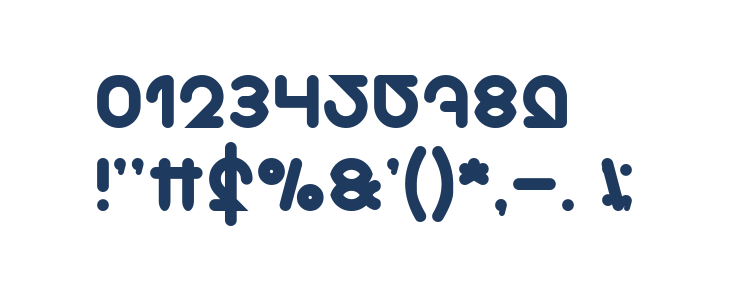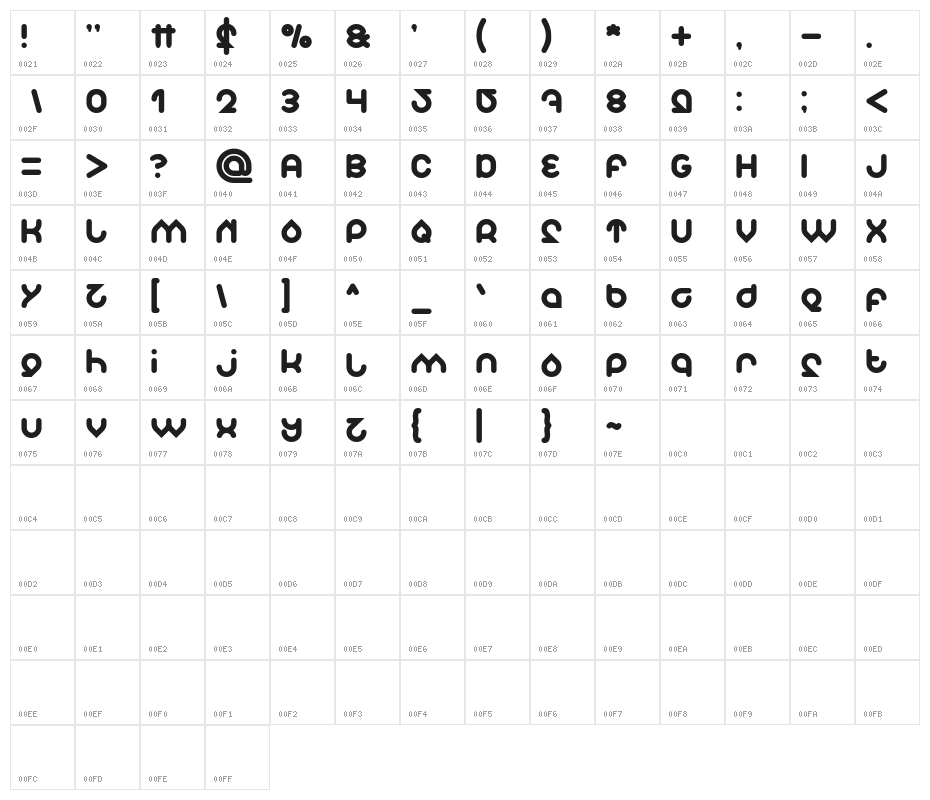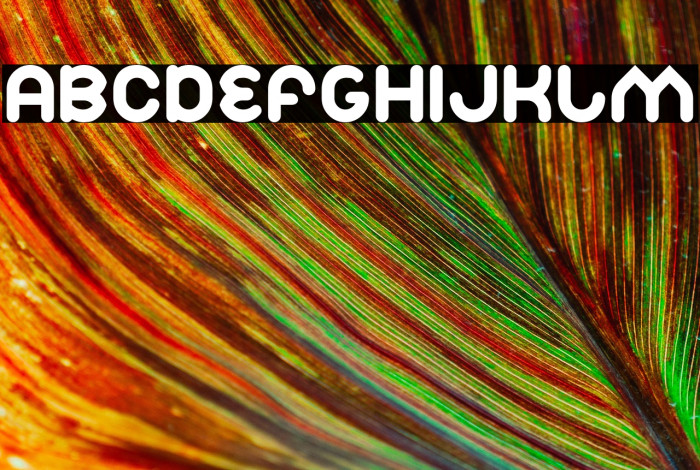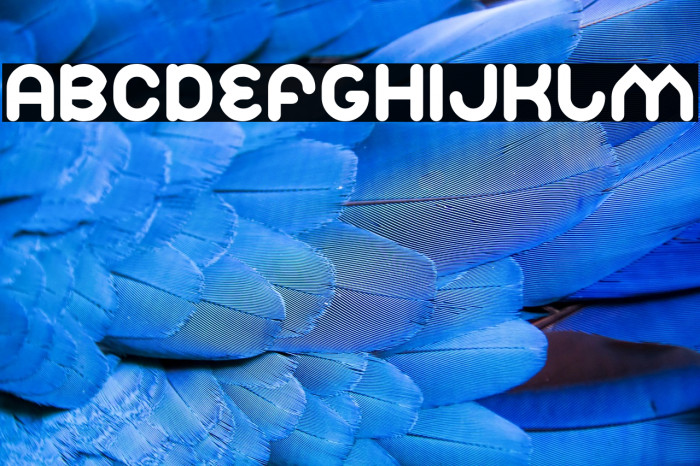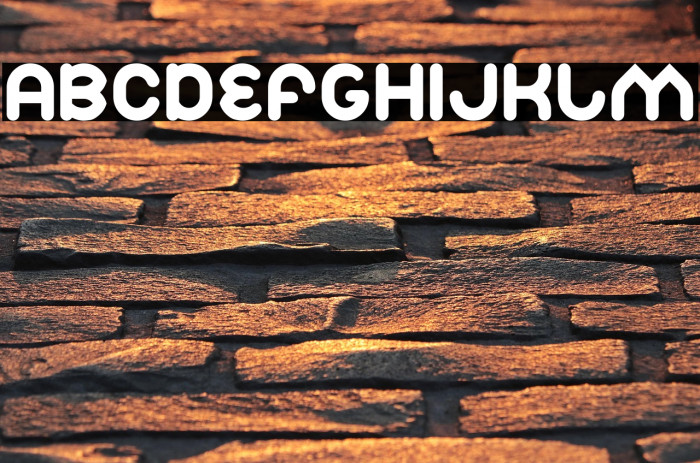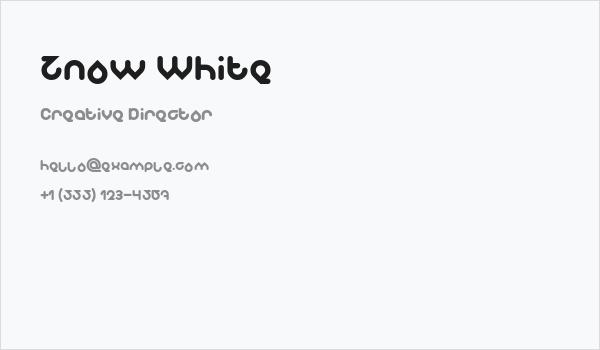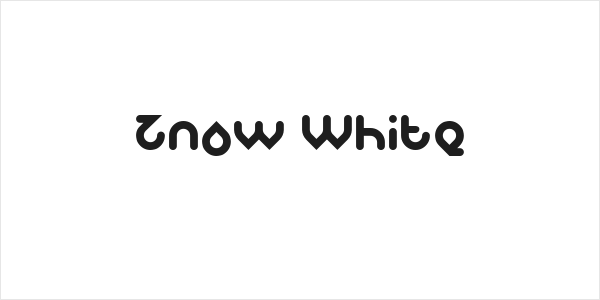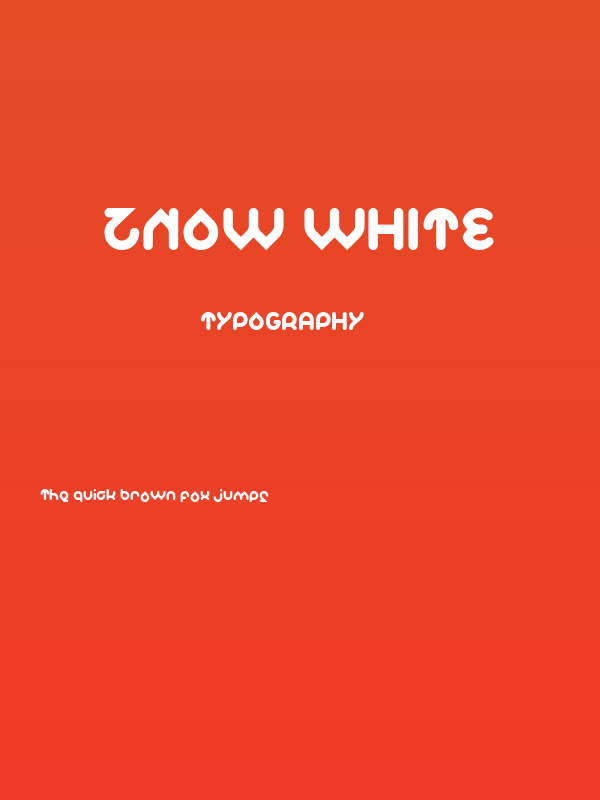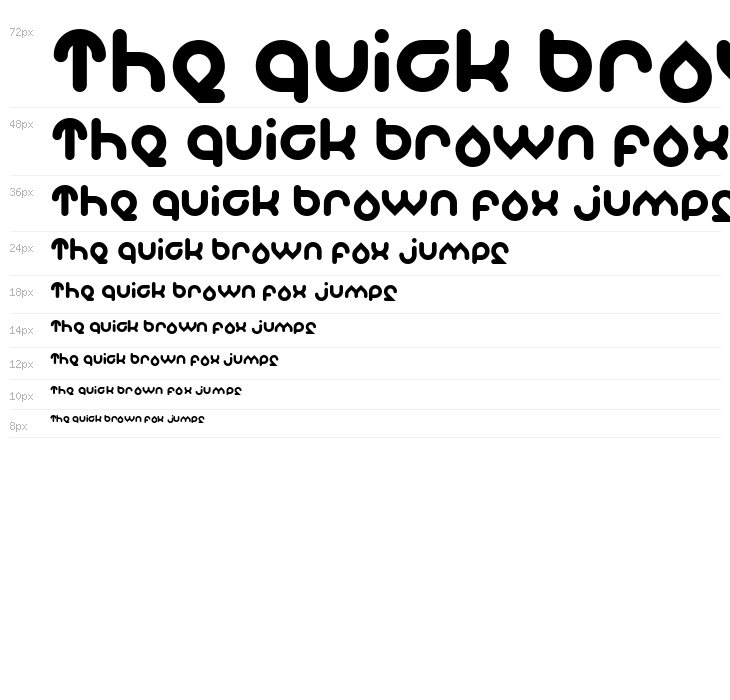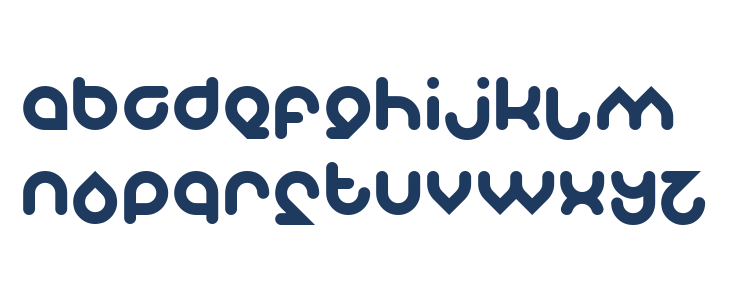
Znow White Font
Znow White Description
This font features a bold and playful design with rounded edges and a modern, geometric style. The characters are uniformly thick, creating a cohesive and visually striking appearance. The uppercase and lowercase letters share a consistent design language, with a unique twist on traditional letterforms. The numerals and special characters maintain the same boldness and rounded aesthetic, ensuring a harmonious look across all text elements. This font's distinct style makes it suitable for projects that require a fun and contemporary feel.
| Proposed Projects | Ideal for children's books, playful branding, modern posters, and creative packaging. |